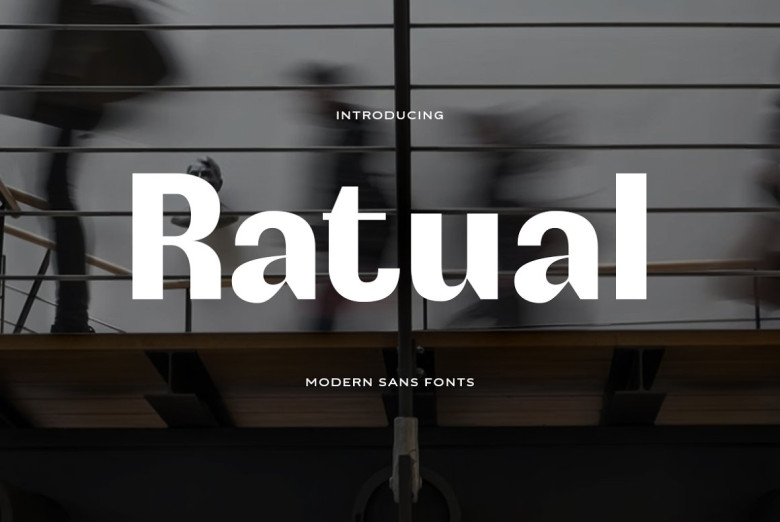
Ratual Font
Ratual, a modern sans, is suitable for various kinds of design projects such as logos and corporate IDs, as well as advertising or editing work, etc. Sophisticated minimalist design elements juxtaposed with elegant linkages give the appearance of any style professional and high-tech.
Ratual Sans Serif Font